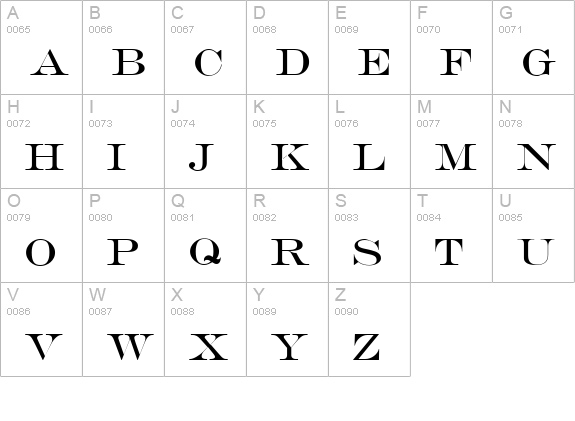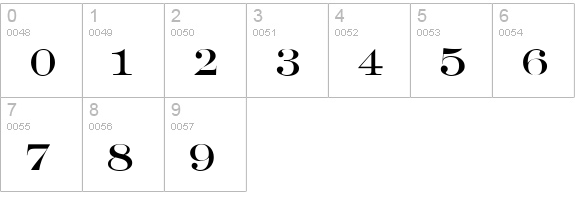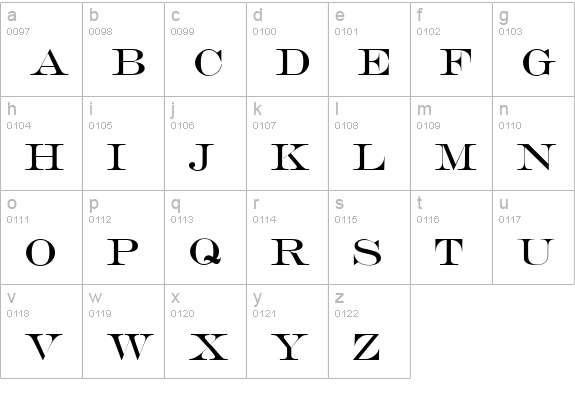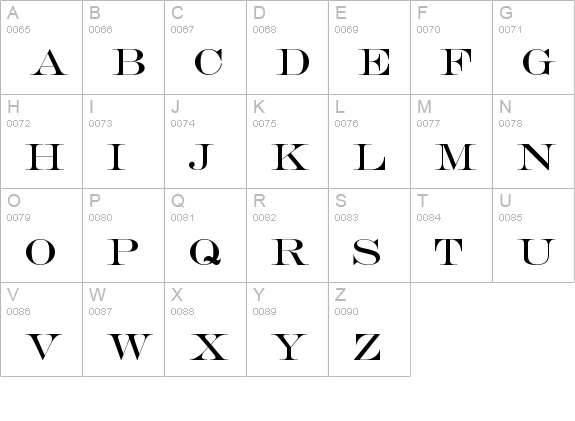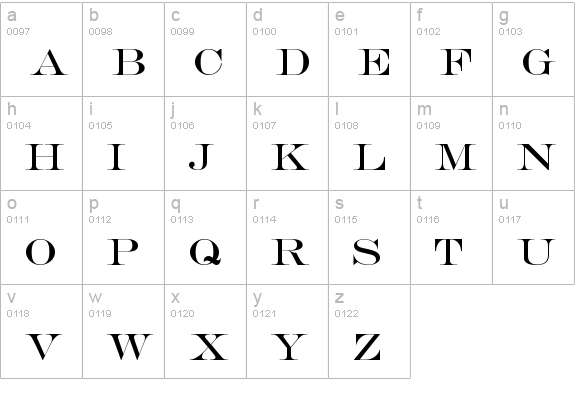
CgOrlandoCaps Font Details
CgOrlandoCaps is a stylish and elegant font that exudes sophistication and charm. The intricate details of each letter showcase a unique blend of modernity and classic design elements, making it perfect for a wide range of creative projects. The clean lines and sharp edges of this font make it a versatile choice for various design applications, from branding to print materials. What sets CgOrlandoCaps apart is its versatility and adaptability to different design styles and themes. Whether you are working on a sleek and contemporary project or aiming for a more traditional and timeless look, this font will elevate your design with its refined aesthetic. Best of all, CgOrlandoCaps is freely available to download at FontsMarket.com, allowing designers and creatives to access this premium font without any cost. Don't miss out on the opportunity to enhance your projects with the elegance and flair of CgOrlandoCaps.